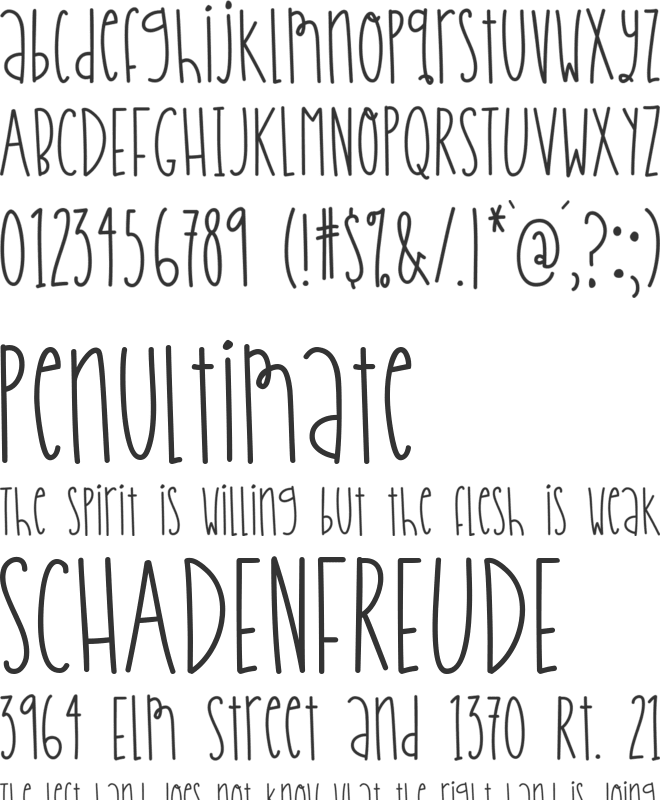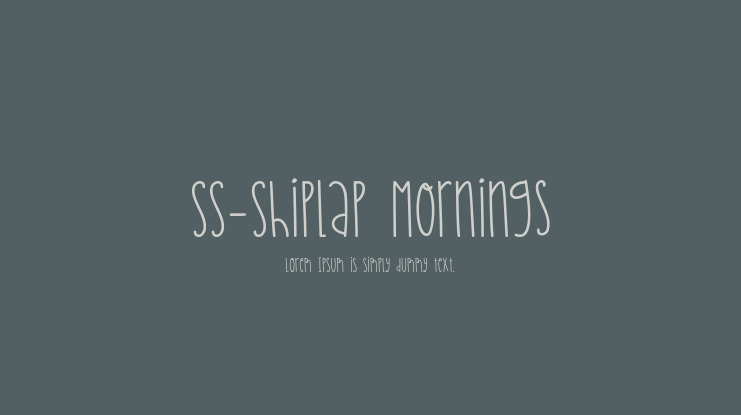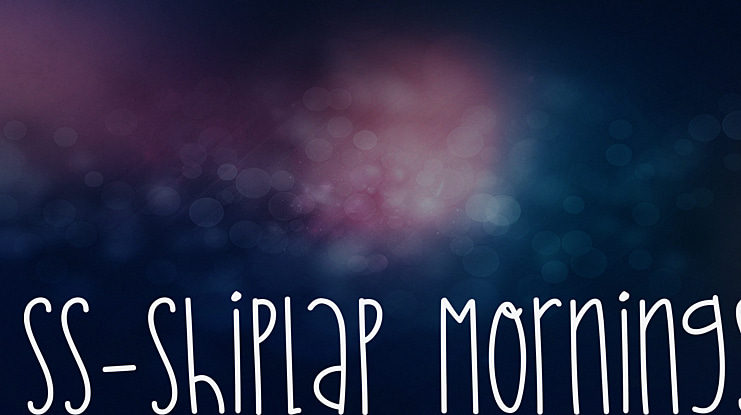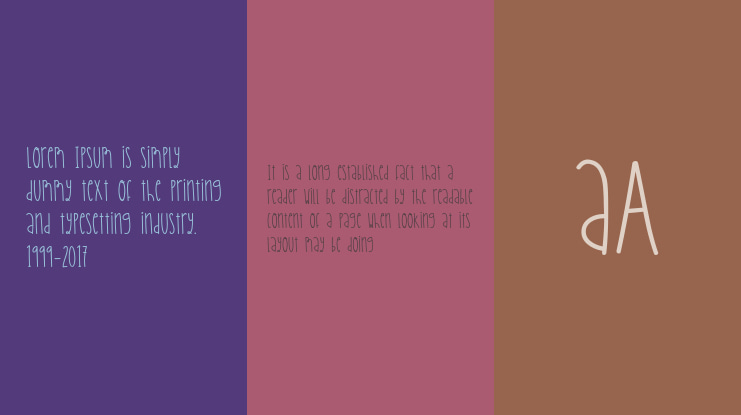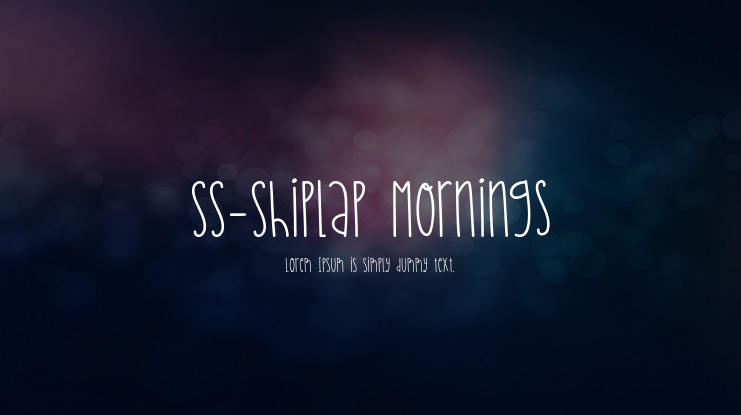
SS-Shiplap Mornings Font
Sabrina Schleiger Design,LLC
Shiplap Mornings is a qute, tall and skinny handwritten font perfect for farmhouse lettering projects and more! Free for personal use.